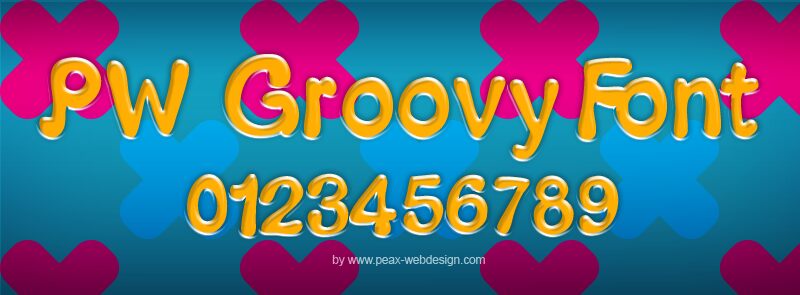
PW Groovy by Peax Webdesign is a free cartoon display font with plump, uneven letters and a loose, hand-drawn silhouette. Its strokes swell and pinch abruptly, producing lively shapes that seem to wobble across the line. Rounded ends give the lettering a soft finish.
Children's posters are its clearest setting. The same cheerful irregularity suits toy packaging, party invitations, and playful food branding. Bulging contours echo balloons, sweets, and bubbly illustrations, letting the lettering become part of the picture.